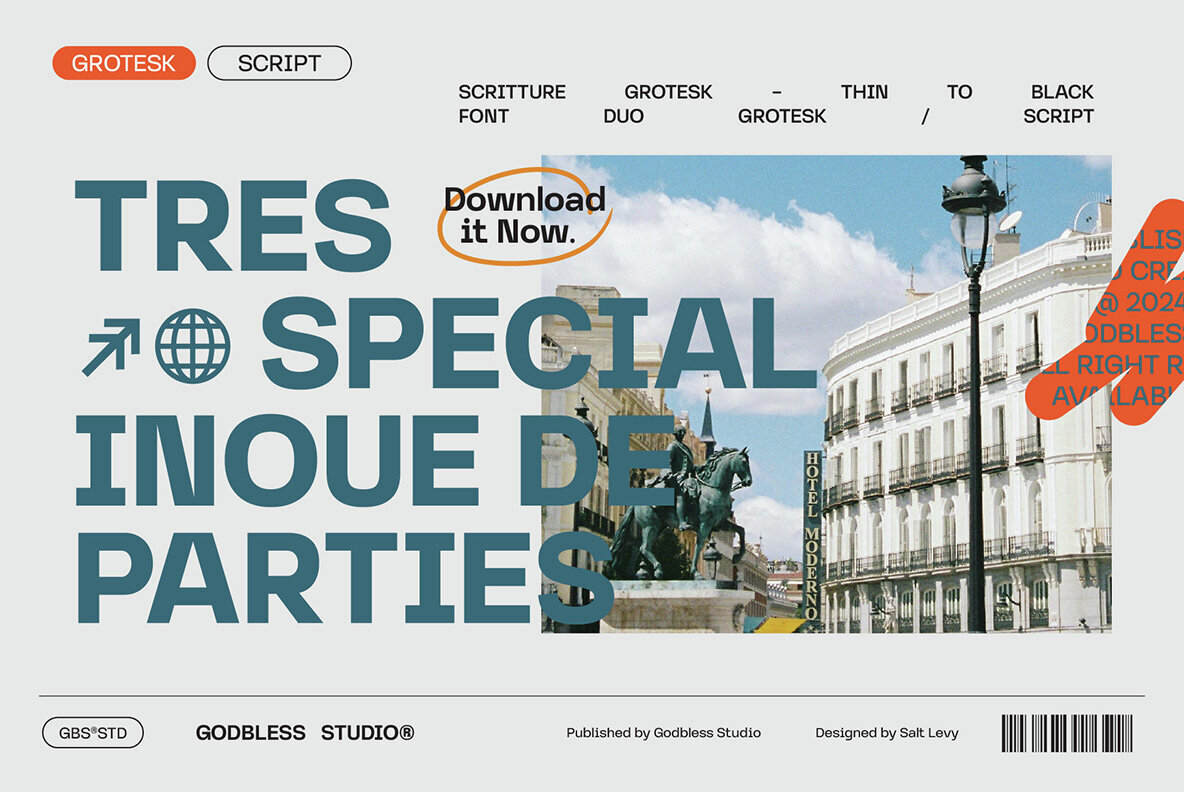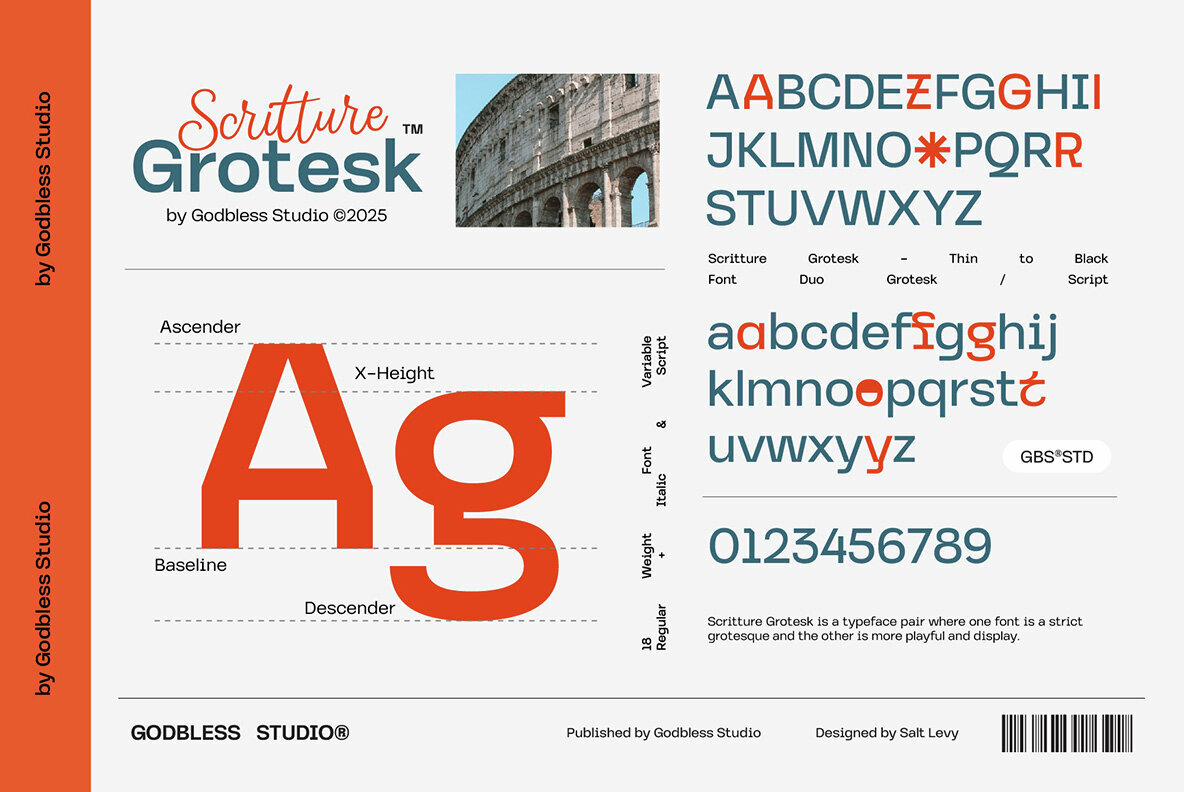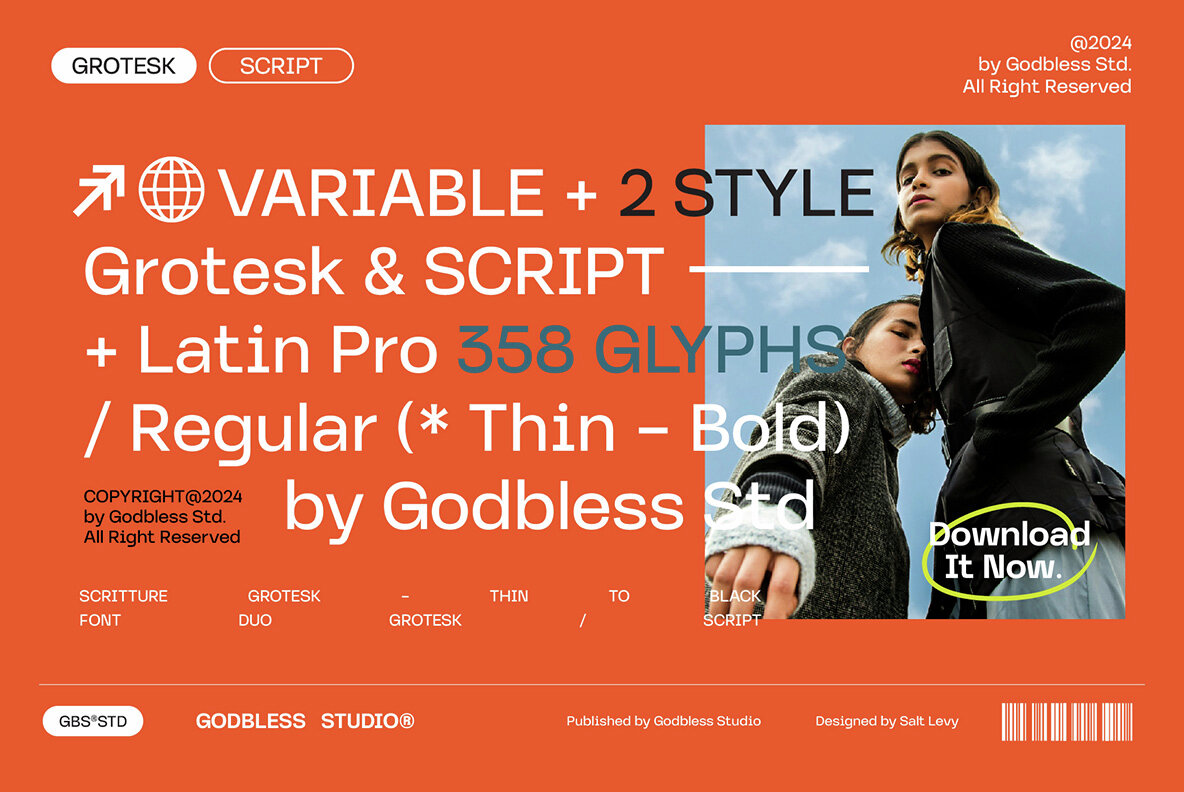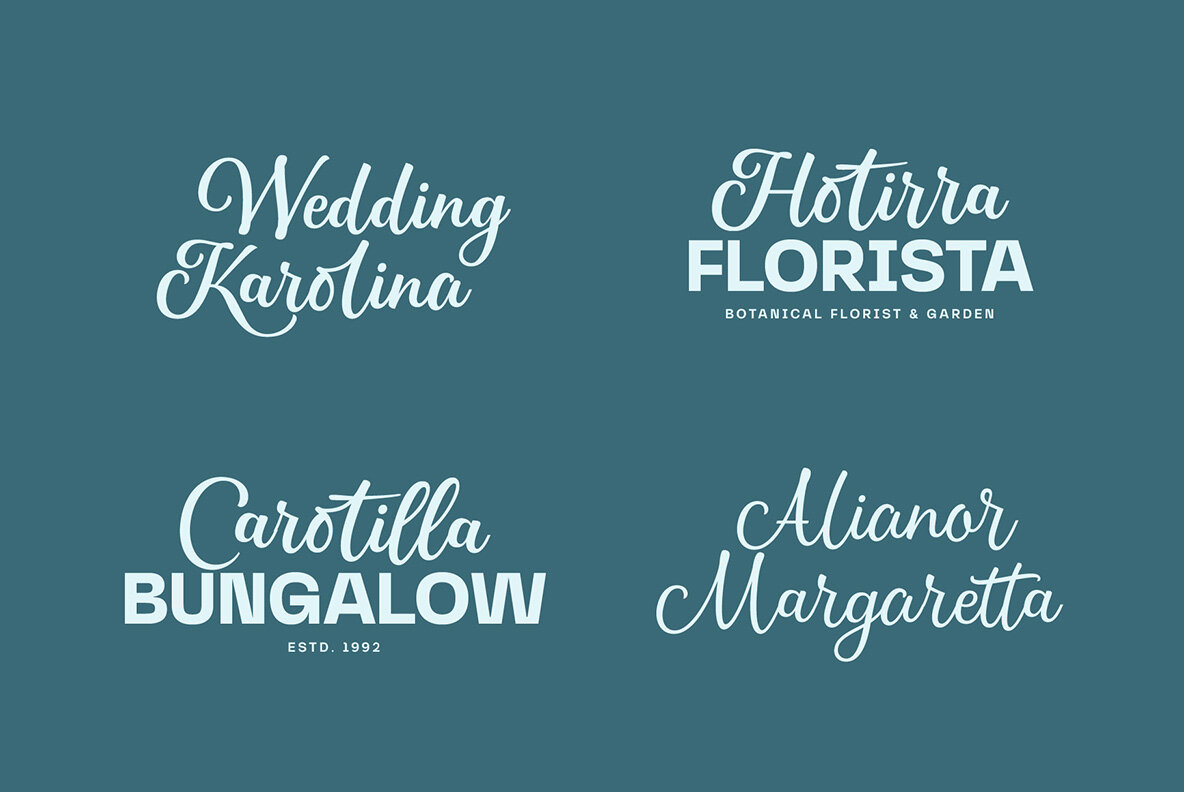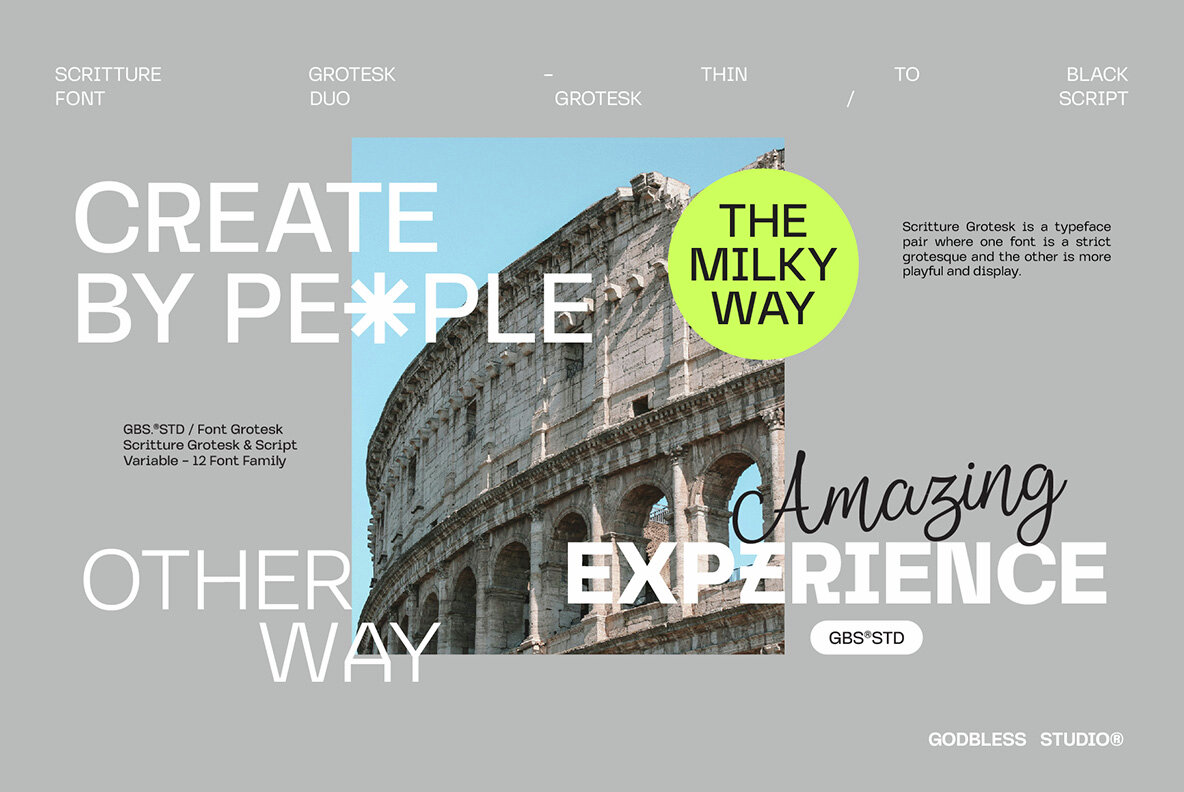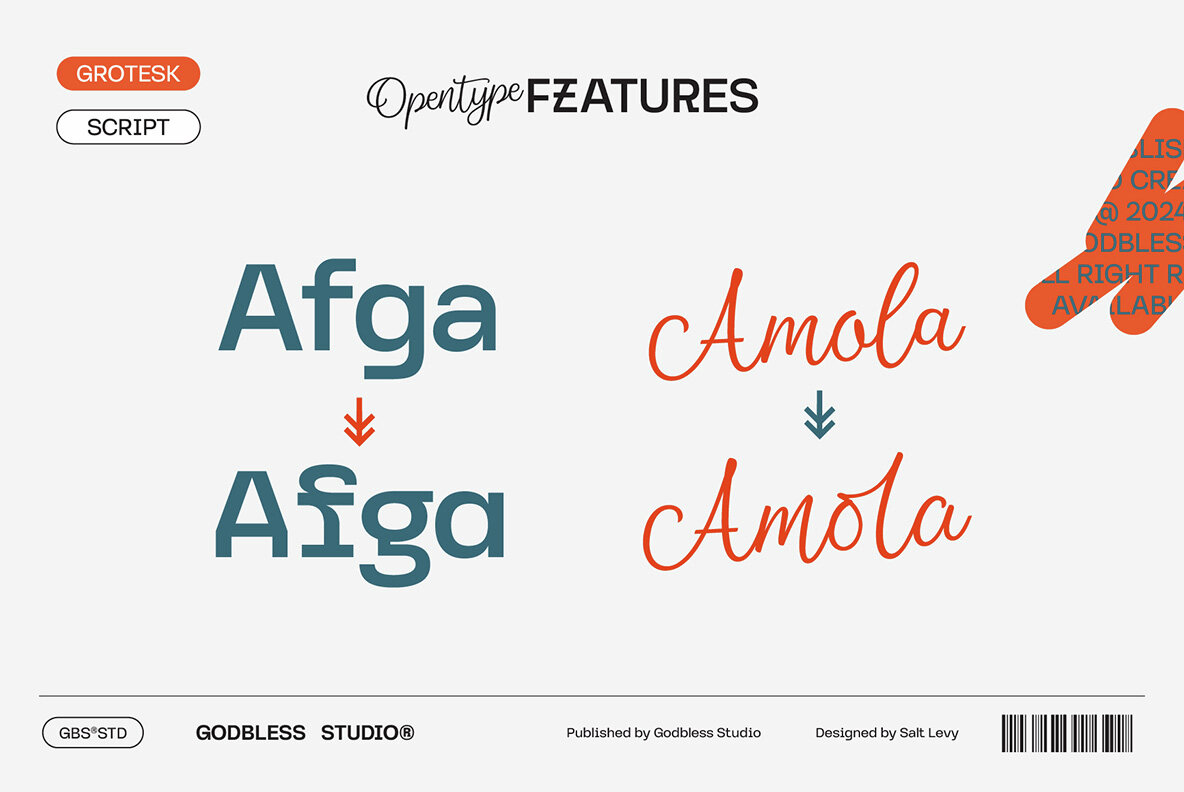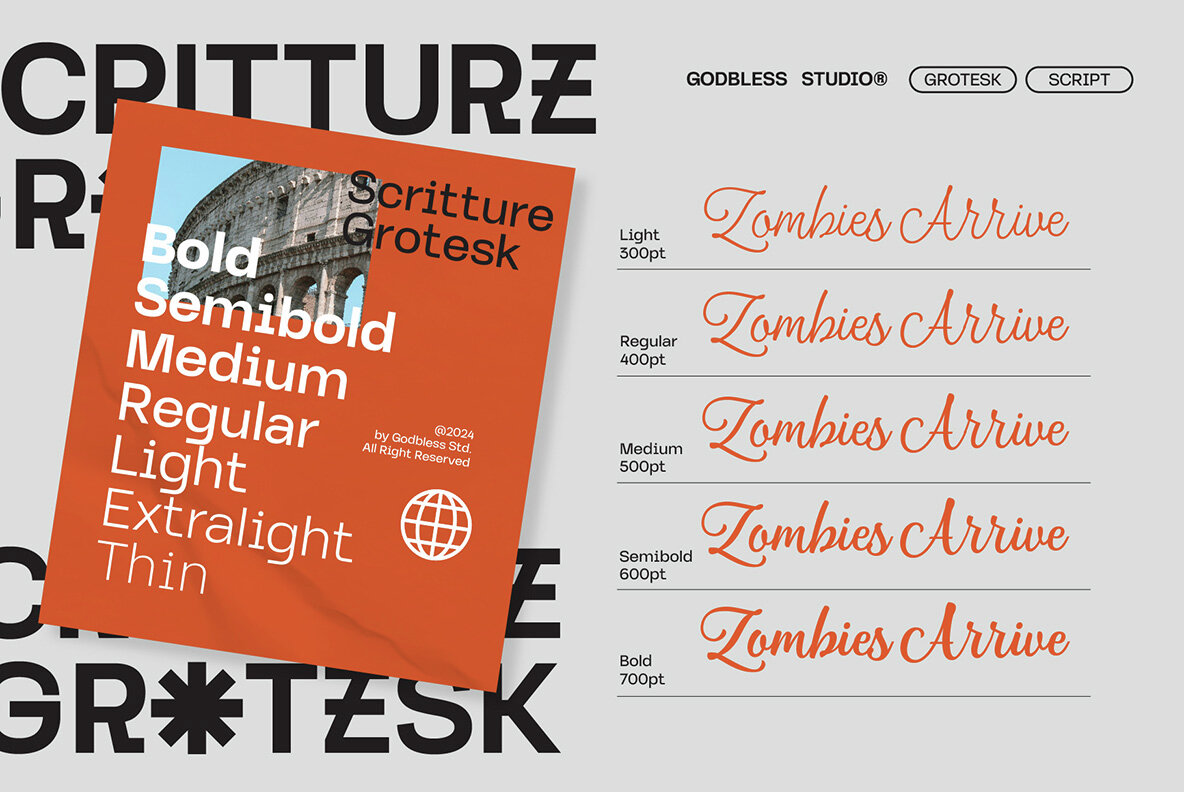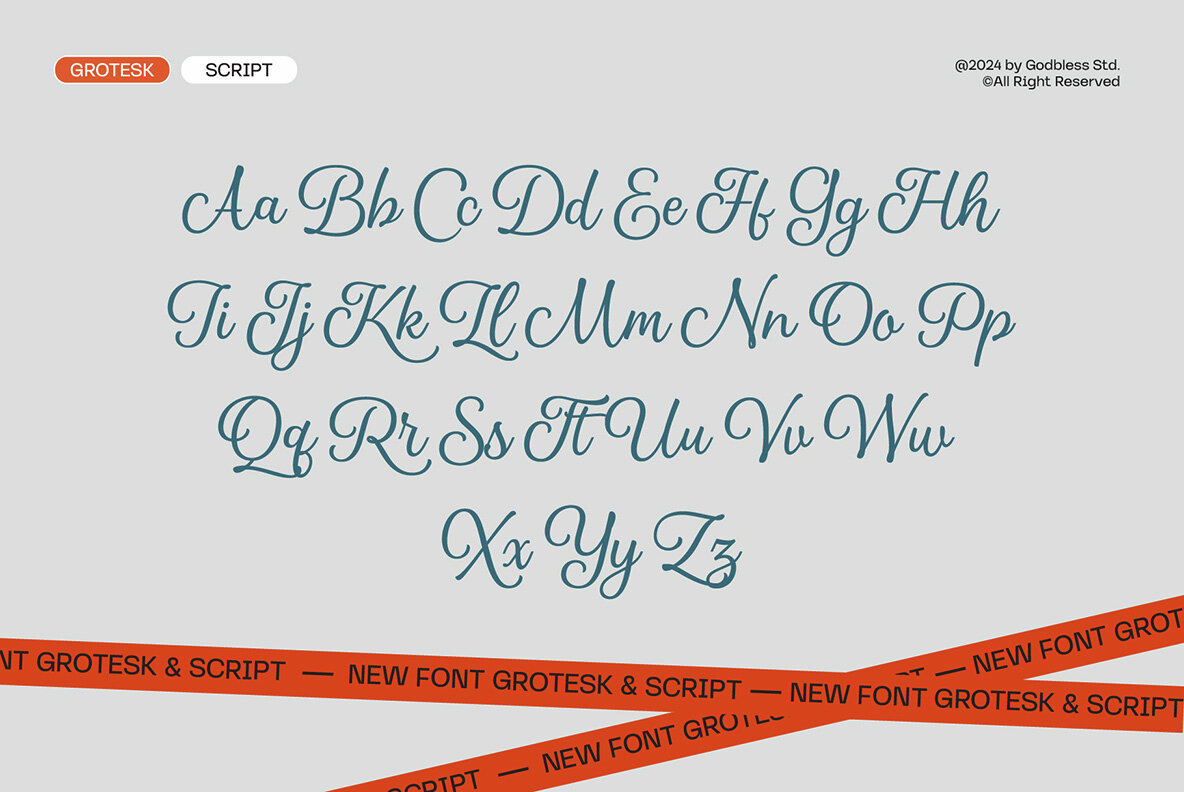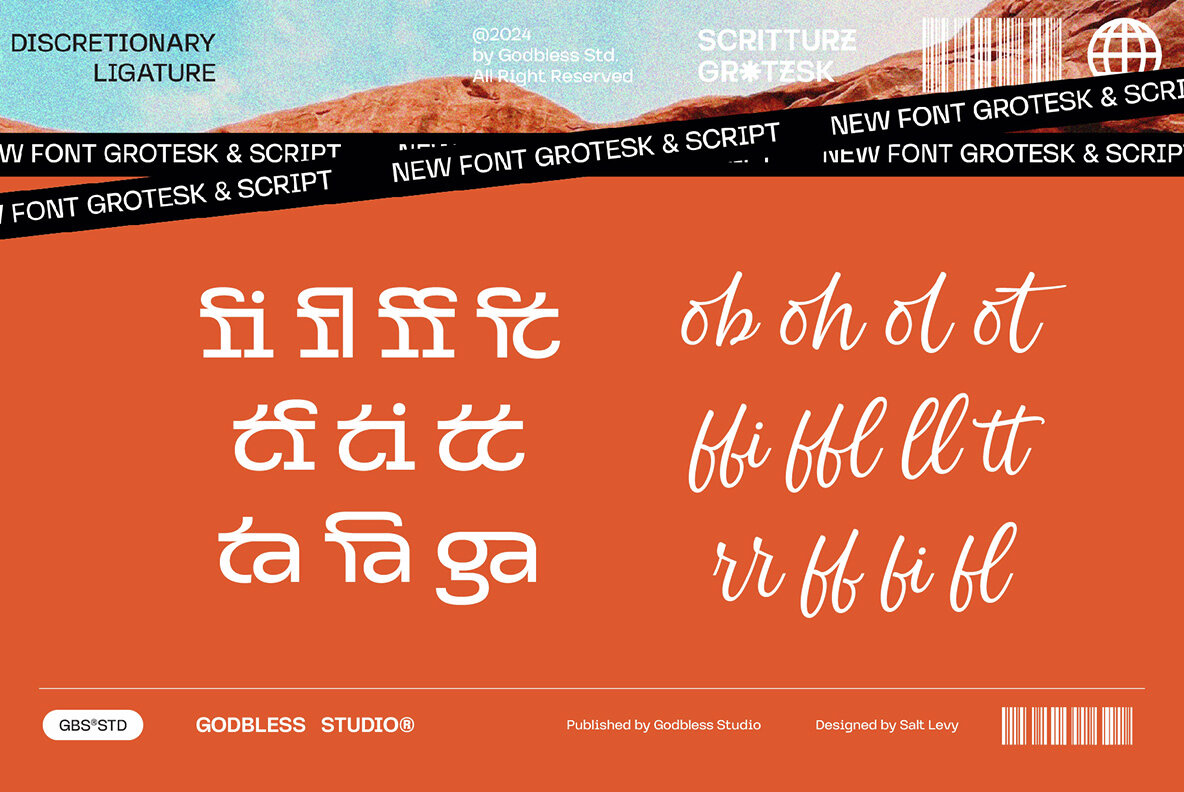
Scritture Grotesk Font
Scritture Grotesk offers a dynamic font duo combining a sleek Grotesk with an elegant Script, ideal for a range of design projects, from branding to digital design. This versatile collection is crafted for modern creatives seeking minimalist aesthetics paired with sophisticated functionality.
Featuring advanced OpenType features, Scritture Grotesk includes Stylistic Alternates, Discretionary Ligatures, and PUA Encoding, giving you precise control over your typographic compositions. The Variable Font option provides seamless transitions from Thin to Bold, ensuring flexibility and adaptability for any project requirements.
Whether you're working on a logo, a website, or an advertising campaign, Scritture Grotesk provides a harmonious blend of timeless style and modern versatility, allowing your typography to make a powerful statement.